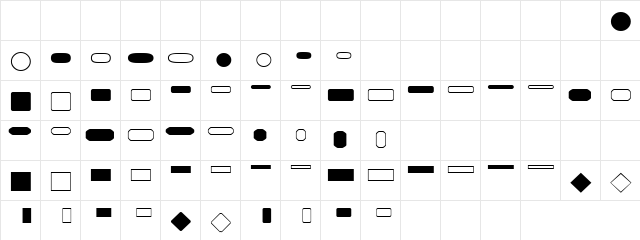
FnT_BasicButtons1 Normal
Design Context for FnT_BasicButtons1 Typeface
FnT_BasicButtons1 is a composed and adaptable typeface that performs quietly and consistently across a wide range of design contexts.